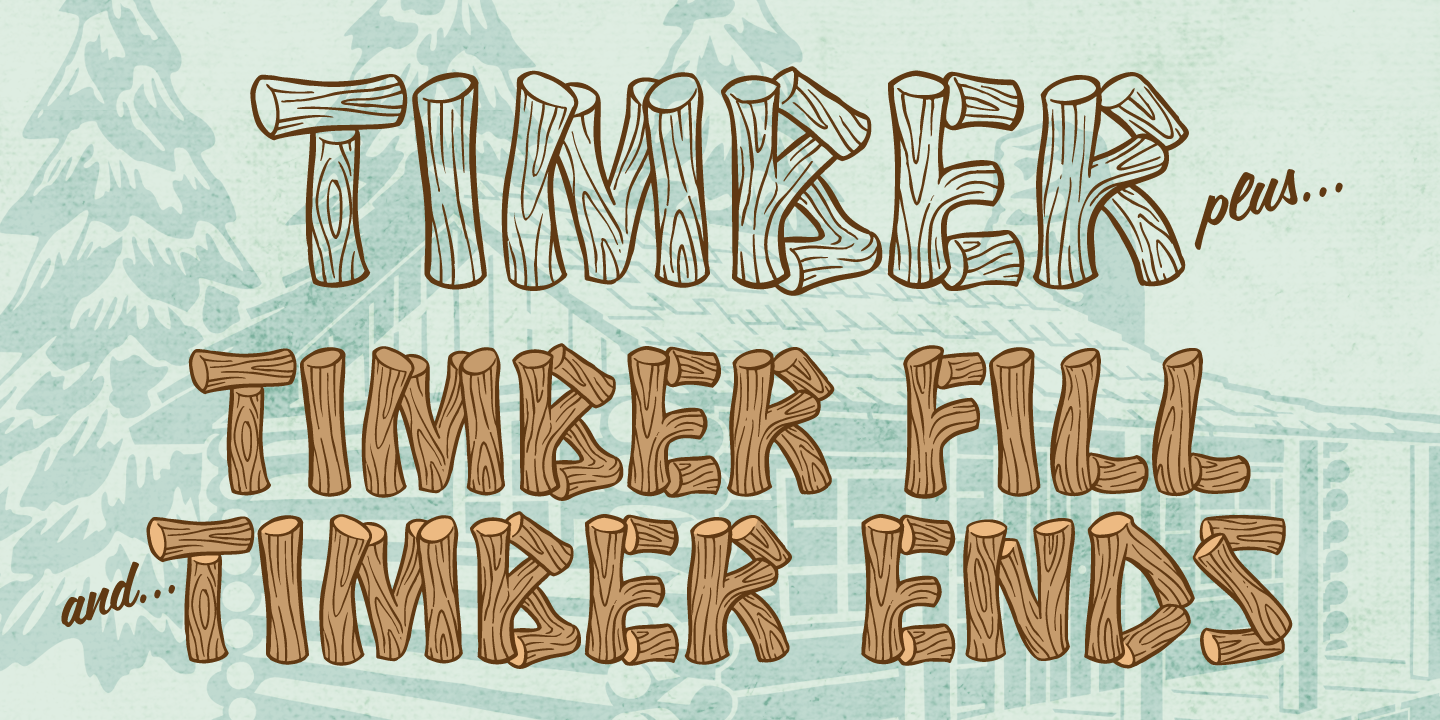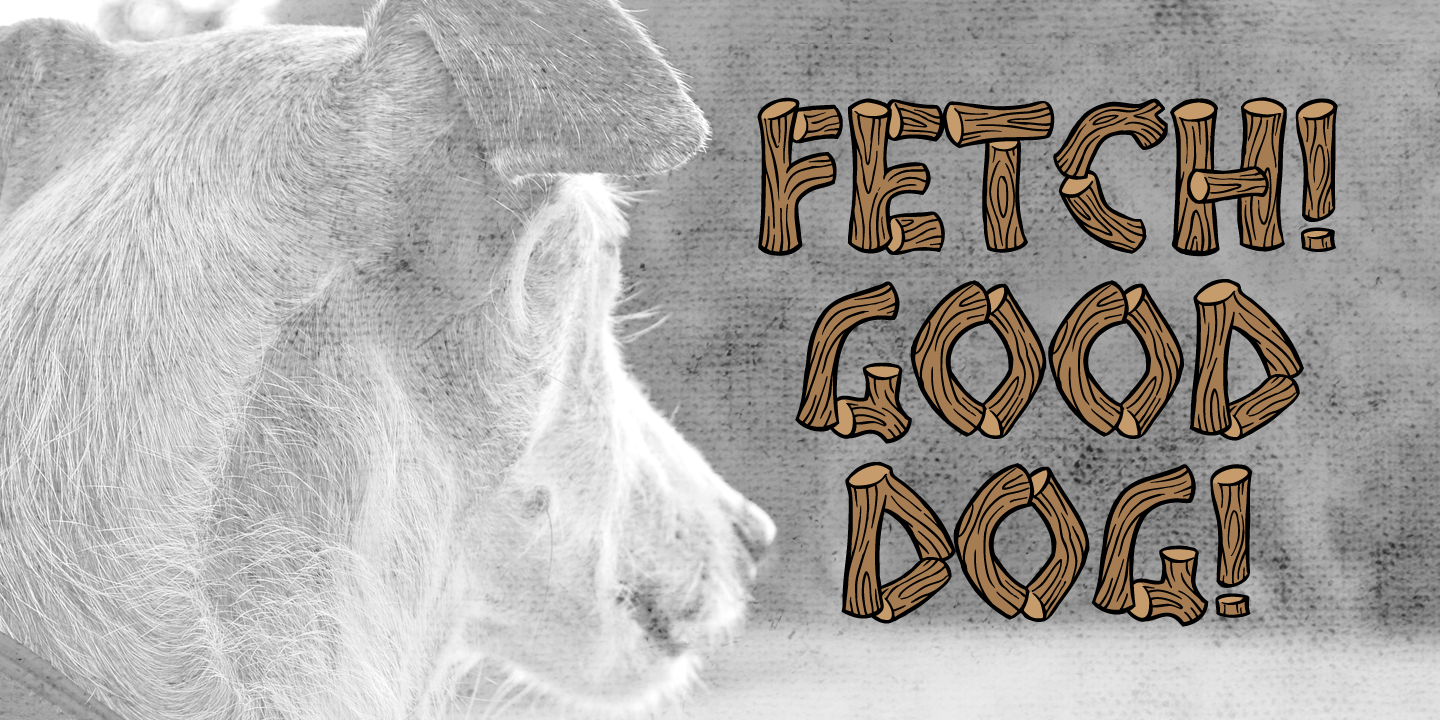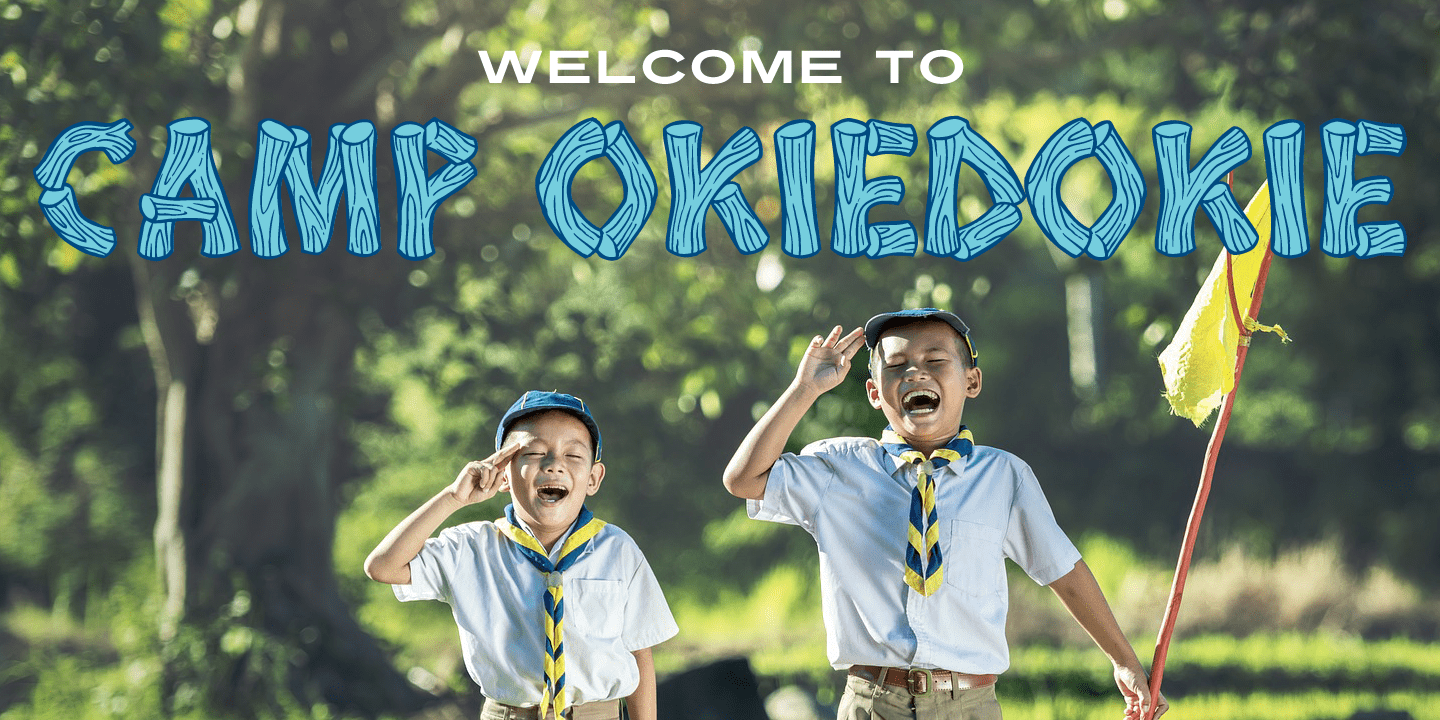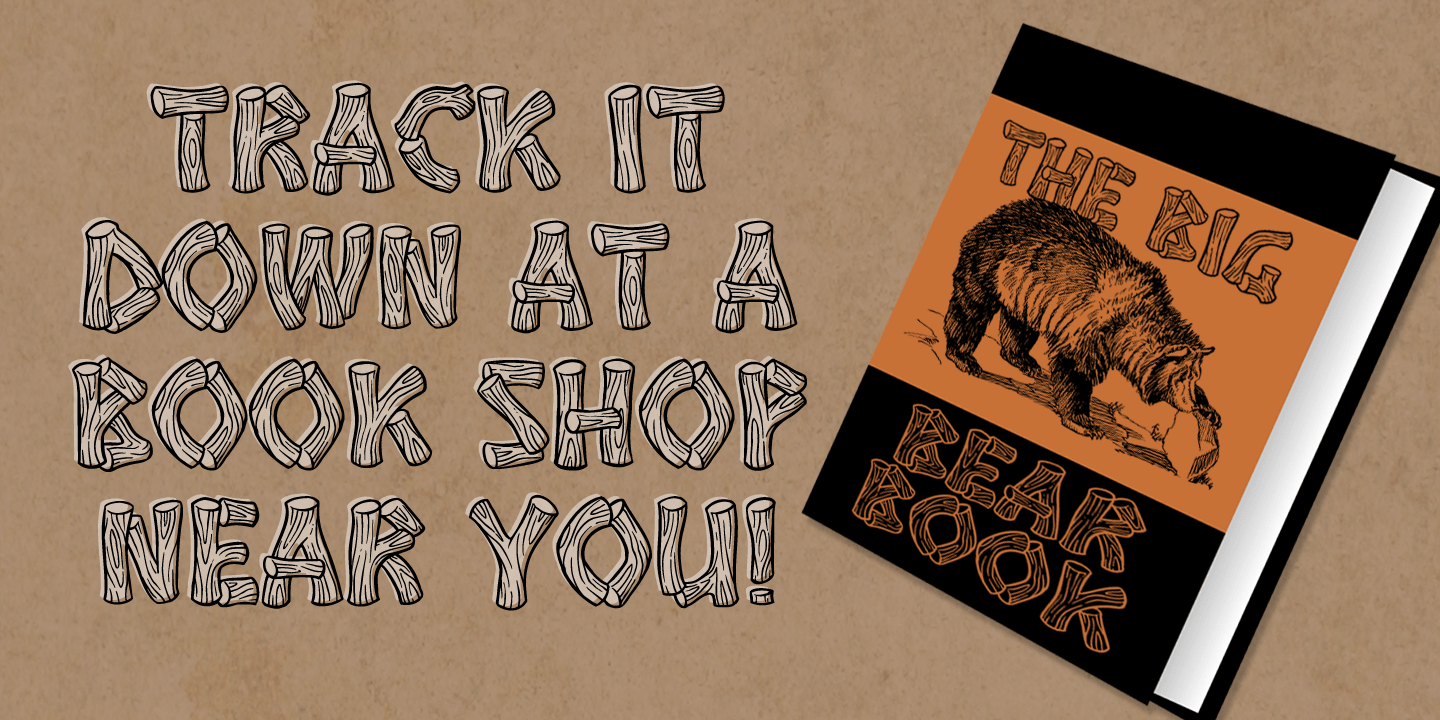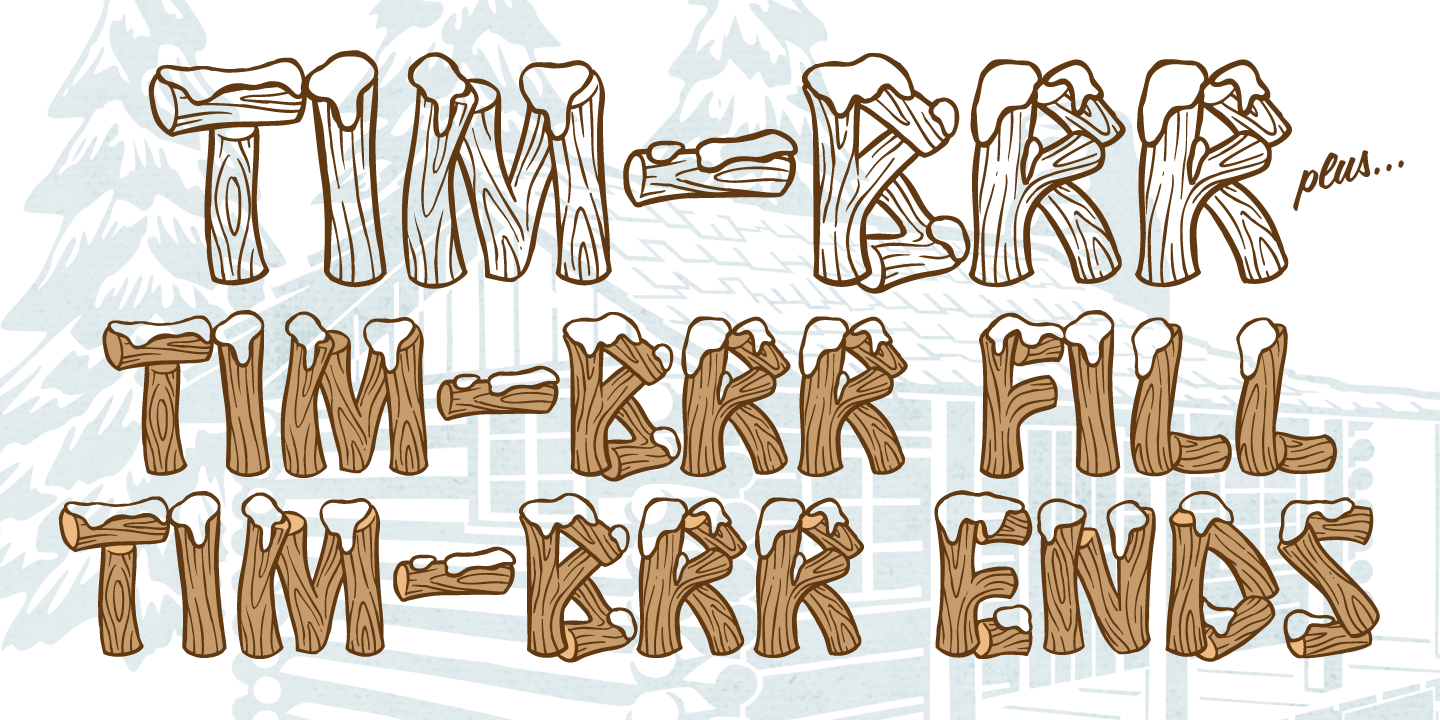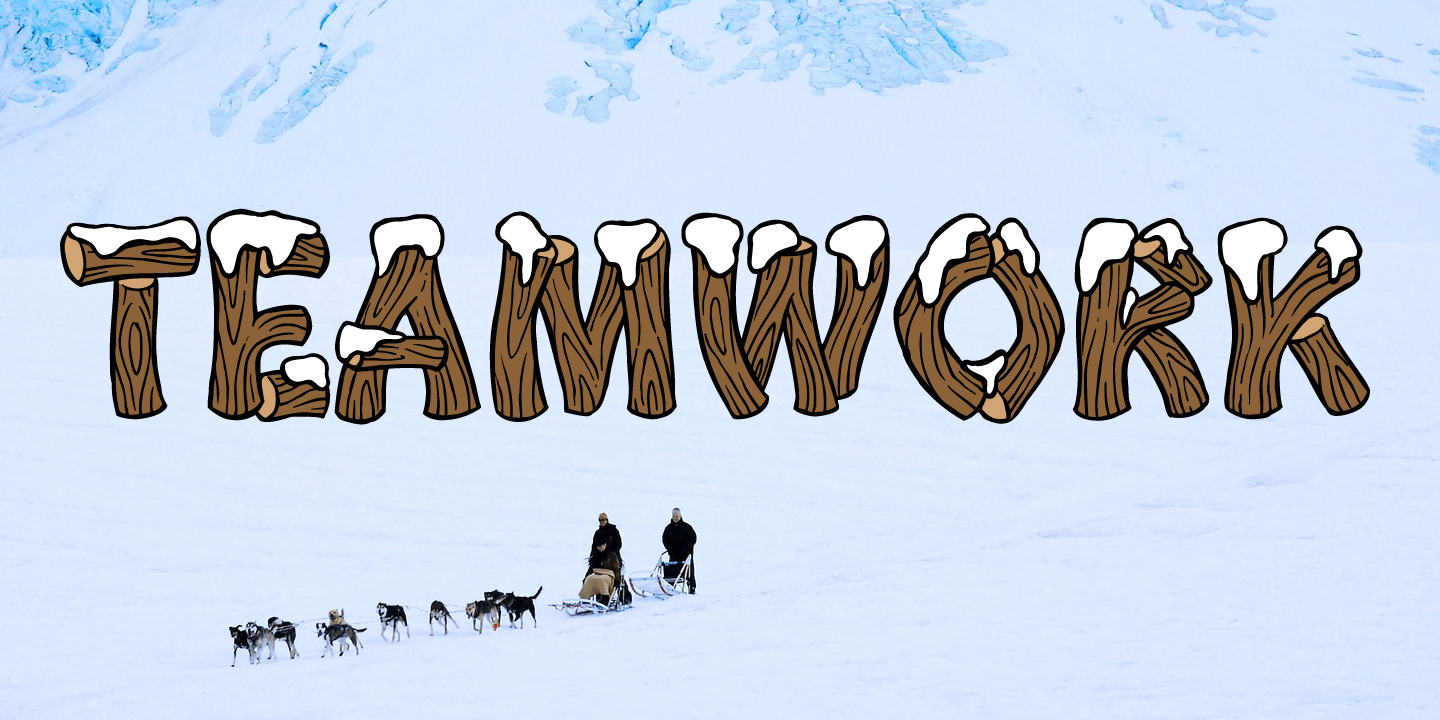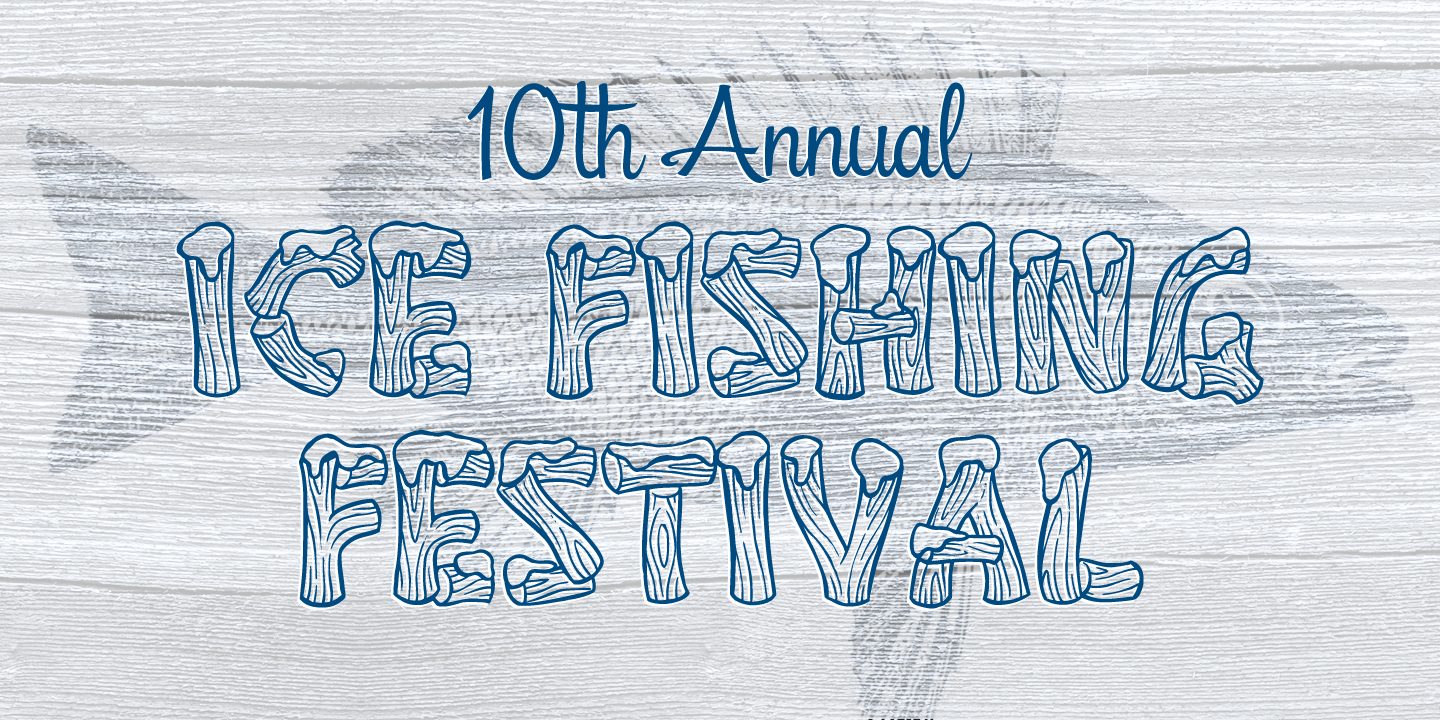
Timber & Timbrrr
Font Family by Sideshow
Direct from the frozen north, it's TIM-BRR! It's cold, snowy and suitable for any hunting lodge or lake cabin. Heck, you can even use it in the big city with the same rustic results. KEEP FROZEN UNTIL READY TO USE.
Timber is a sturdy font built by northwoods loggers (Or perhaps by beavers - we're not quite sure) No plywood or simulated woodgrain veneer here, folks! Just genuine hardwood logs ready to construct your next rugged typographic project!